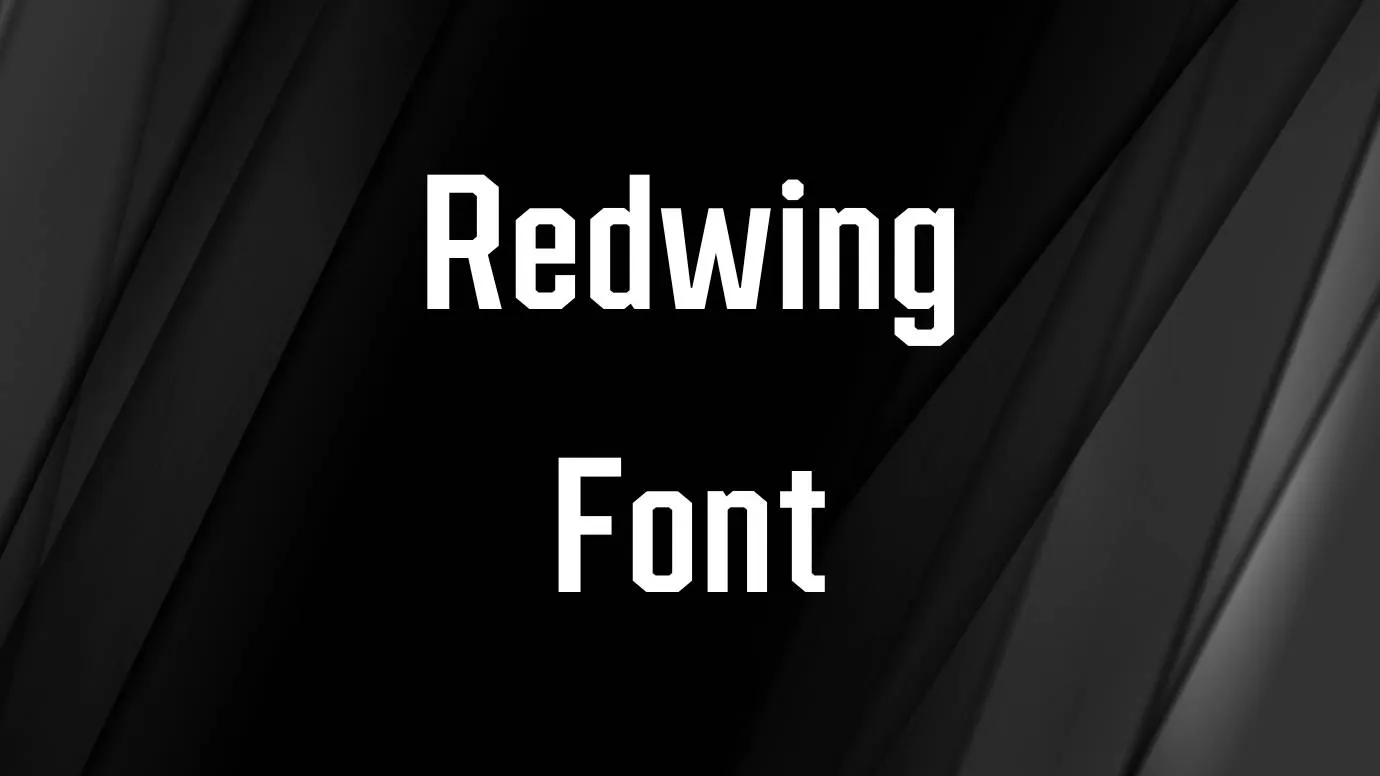
Redwing Font Family comes with curved and bold corners characters. This display-type font was created by an intelligent designer named Jeremy Nelson for the first time.
The designers can pick this display-look font for making a strong combination with its alternative font like gin font which is also a display-type font.
Redwing Font